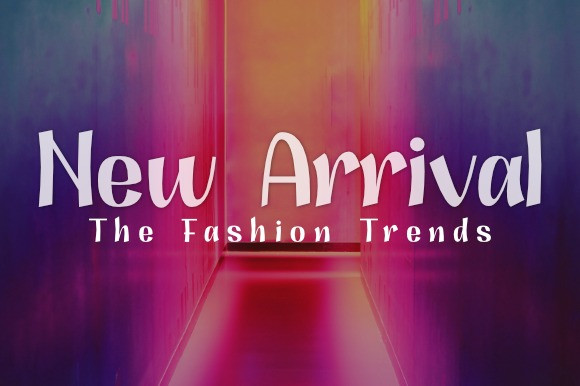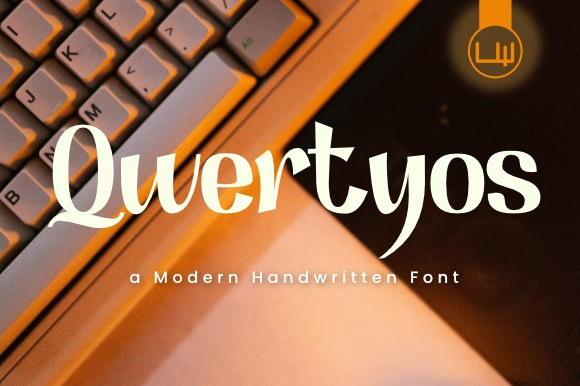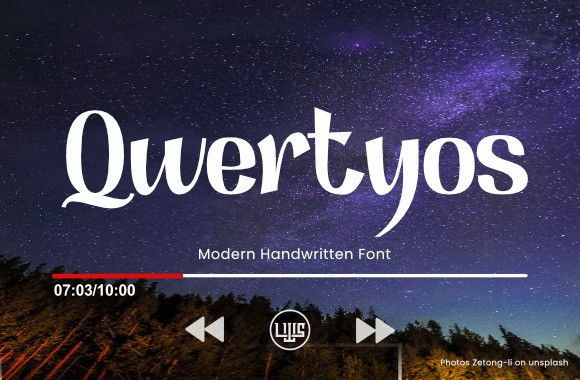
Qwertyos Font
Qwertyos Font is an exquisite handwritten font, masterfully designed to become a true favorite. It maintains its classy calligraphic influences while feeling contemporary and fresh. Fall in love with it and bring your projects to the highest levels!